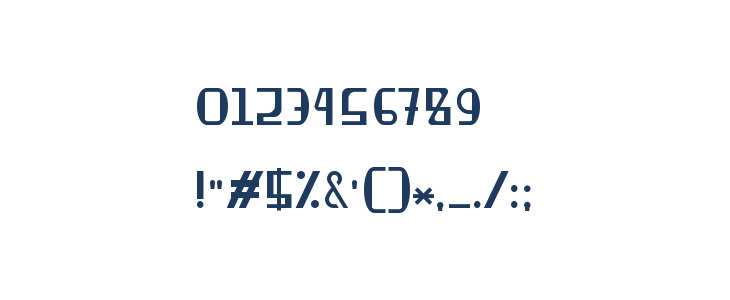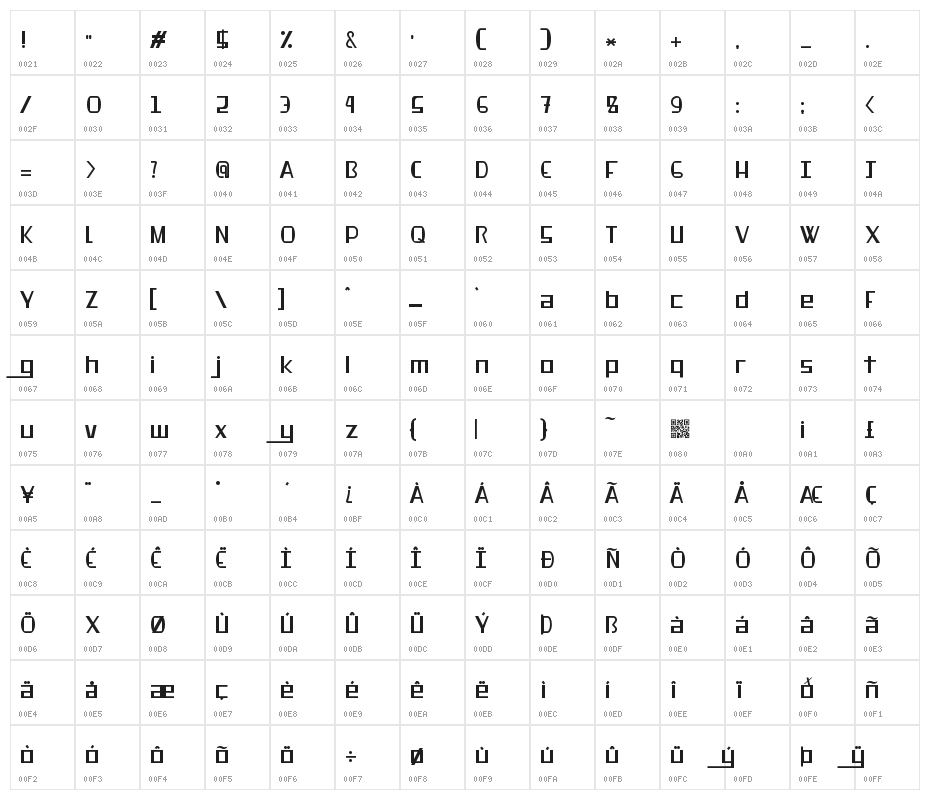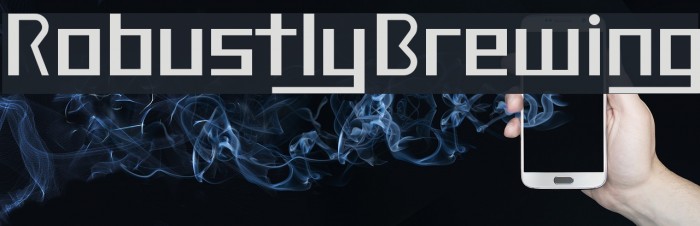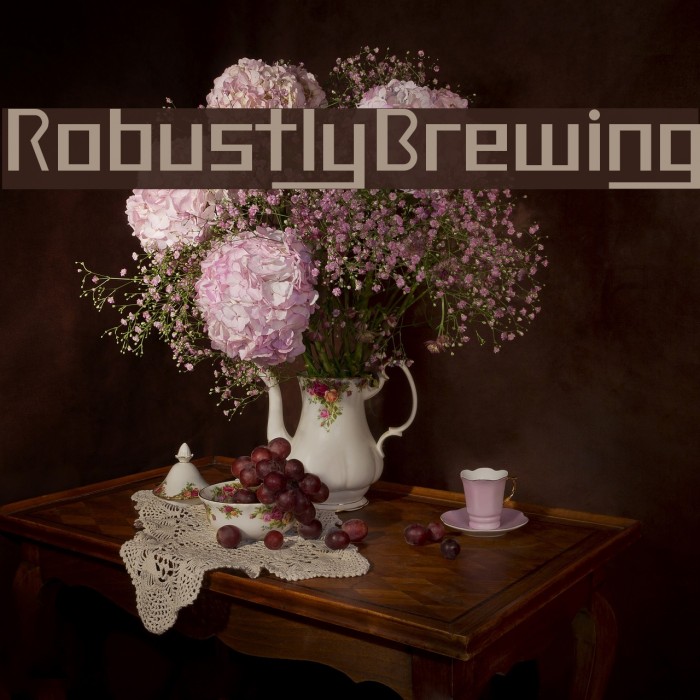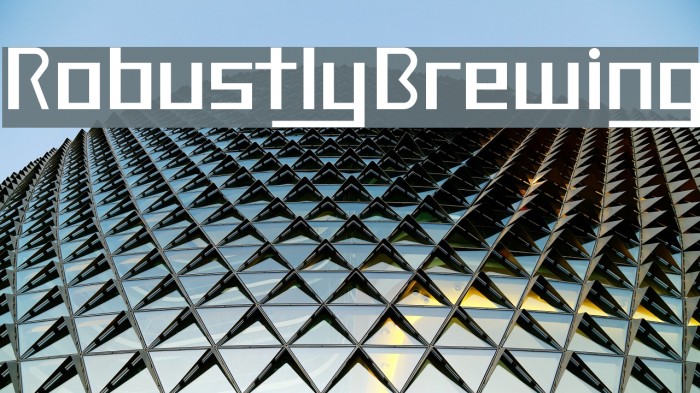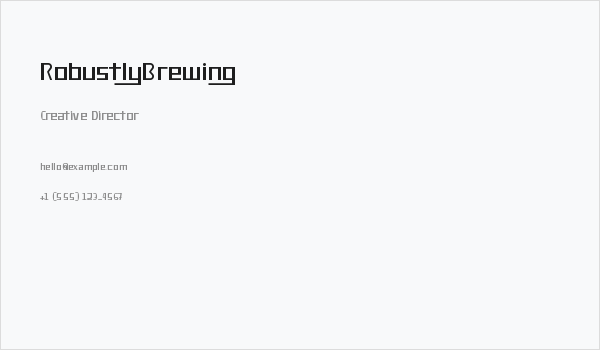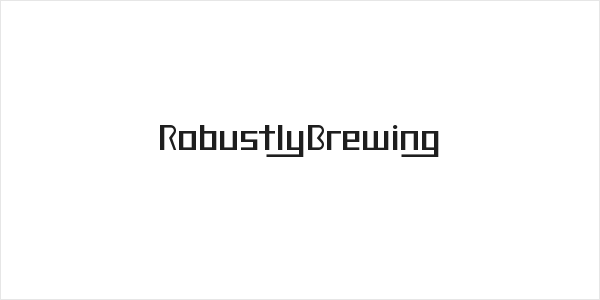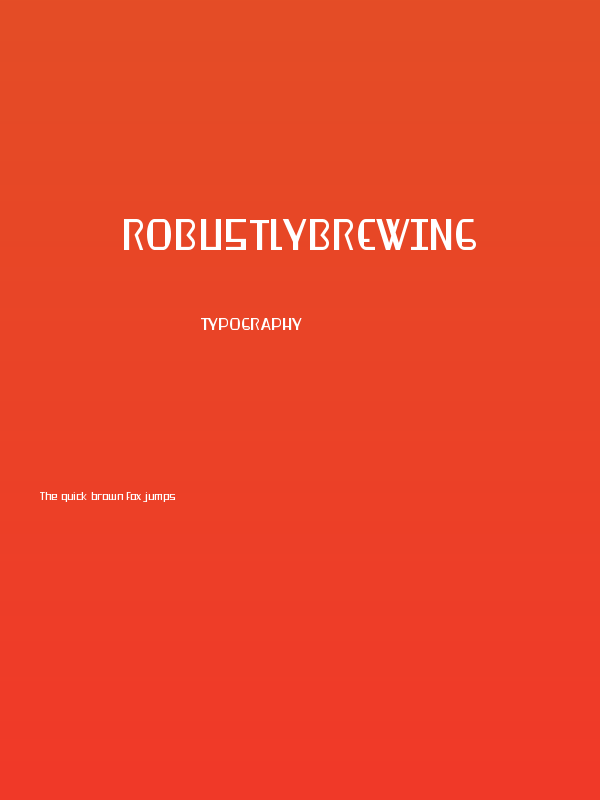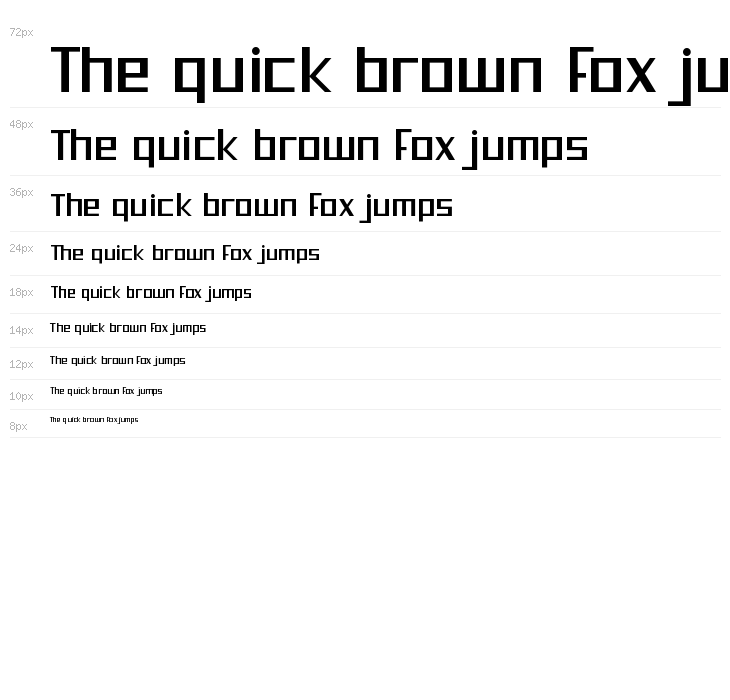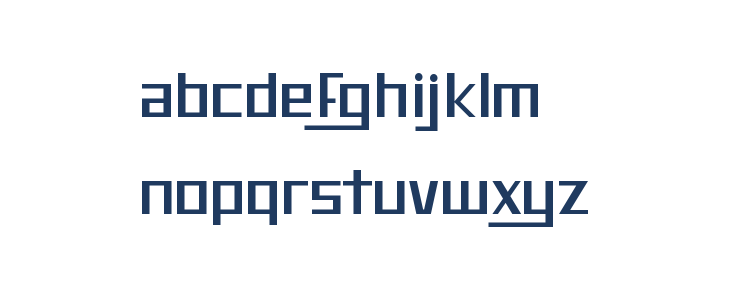
RobustlyBrewing Font
RobustlyBrewing Description
This font features a geometric and modern design, characterized by its clean lines and angular shapes. The uppercase letters exhibit a uniform height with a slight variation in width, giving a structured and balanced appearance. The lowercase letters maintain a consistent style, with some unique elements such as the distinctive 'g' and 'f'. Numbers are bold and clear, ensuring readability. Special characters are well-integrated, matching the overall aesthetic. The font's design is both functional and stylish, making it suitable for various applications.
| Use Case | Headlines, Logos, Digital Media |
| Proposed Projects | Ideal for branding, advertising, and digital media projects where a modern and clean aesthetic is desired. |